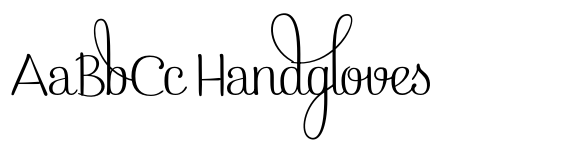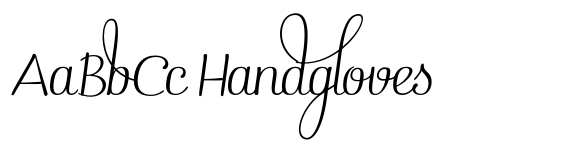
Pepita Script
Die Schriftfamilie Pepita Script wurde von Emil Karl Bertell entworfen und von Fenotype veröffentlicht. Pepita Script enthält 6 Stile und Familienpaketoptionen.
Pepita is a flexible and easy to use connected script. Pepita has plenty to offer: a selection of 72 ornaments and plenty of ligatures and alternate characters: try turning on Contextual Alternates, Swash or Stylistic Alternates in any Opentype savvy program or manually choose the characters from the glyph palette. For best results combine all 3 weights of the font.
Pepita Script
Emil Bertell has done it all. Having published his first font files at 16, he was considered to be an international free-font hero while still in his teens. He went on to attend design college, drop out, and become a well-known graphic designer and illustrator. Now one of the most successful type designers from the Nordic countries on MyFonts, the Finland-based designer said in his Creative Characters interview that he’s “had an obsession with visual culture from the beginning.” Before turning his attention to type design full-time, Emil had a very successful career as an award-winning illustrator. “Illustration became my main livelihood,” he said. “I drew painstaking pencil illustrations for magazines, advertising, stamps, etc. I often designed my own fonts for festivals and hand-drew the lettering posters; I also did a few pencil illustrations based on lettershapes, and that got out of hand, so I had to do a lot more of them.” In 2012 he finally made the switch and committed all of his time to type design. Emil first saw success with his Billboard typeface. “It became my first Rising Star on MyFonts and made me realize that I could actually make a living by designing fonts,” he said. “I realized that there’s actually a market out there that I could become a part of.” Throughout the rest of that year he began to see even more success. It began in January, when his font, Mishka, was featured in our Most Popular Fonts of 2011 list. He went on to find a way to bookend the year and was listed among the Most Popular Fonts of 2012 with his Mercury Script design. Since then, his foundry’s success has continued on with best sellers like Voyage and The Carpenter. Fans of the foundry have a lot to look forward to in the near future. Emil will continue to produce beautiful scripts (some coming soon to MyFonts!) and has plans to expand his business.